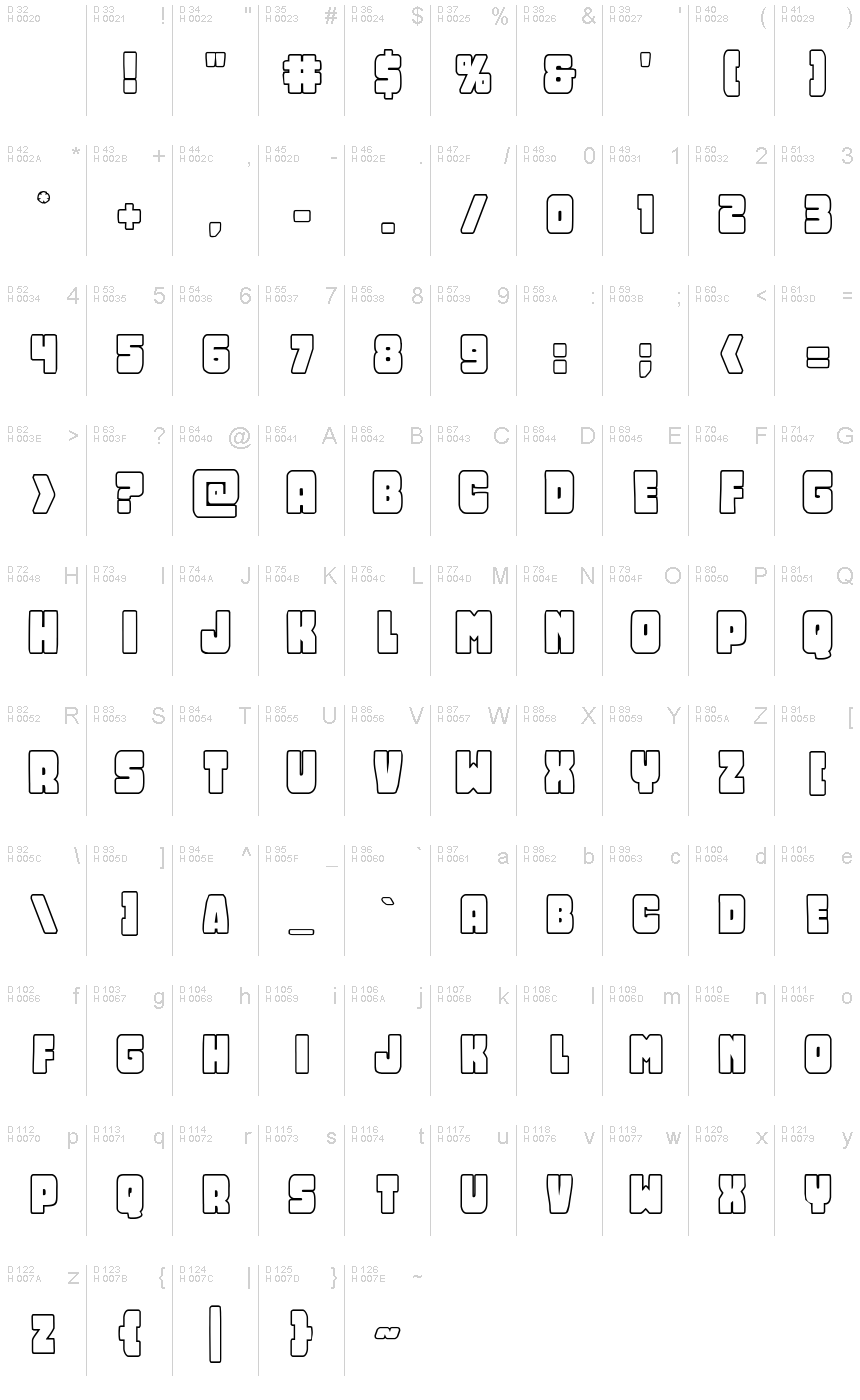
Opus Mundi Outline
Opus Mundi is a bold, condensed display font that exudes a striking, contemporary aesthetic. With its striking outlined letterforms, this font commands attention and lends an impactful, almost monumental presence to design compositions.
The condensed width and heavy weight give Opus Mundi a powerful, resolute quality, making it well-suited for titling, branding, and other high-impact design applications. Opus Mundi's distinctive style can lend an air of authority, modernity, and visual intrigue to a wide range of projects, from editorial layouts to packaging design.
This font's versatility and commanding presence make it a valuable addition to any designer's typographic toolkit.
The condensed width and heavy weight give Opus Mundi a powerful, resolute quality, making it well-suited for titling, branding, and other high-impact design applications. Opus Mundi's distinctive style can lend an air of authority, modernity, and visual intrigue to a wide range of projects, from editorial layouts to packaging design.
This font's versatility and commanding presence make it a valuable addition to any designer's typographic toolkit.